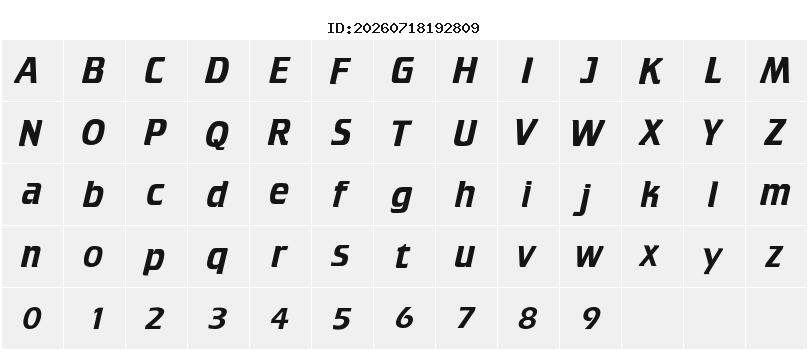
• Font Name: Criffee
• Full Font Name: Criffee
About Criffee.ttf
Criffee.ttf is a modern, elegant sans-serif font designed for ultimate readability and visual harmony. Perfect for branding, headlines, web design, and print materials.